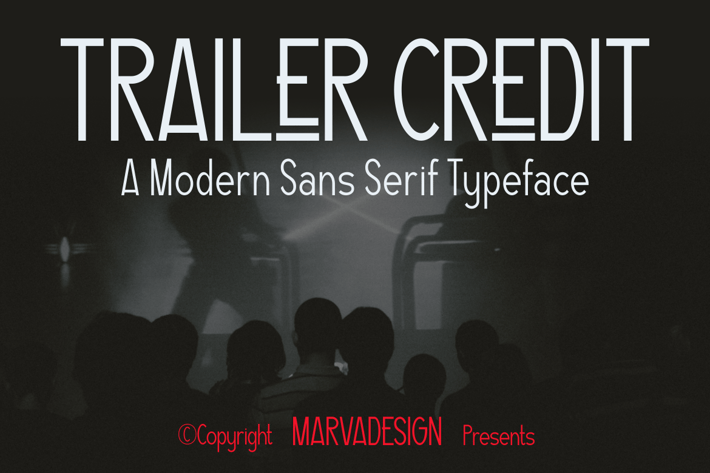
Trailer Credit - A Modern Sans Serif Font
Introducing our new product Trailer Credit - Classic Slab Font
Trailer Credit - A Modern Sans Serif Font authentic display font. The font is suitable for any branding project like logo, Template Design, Product and many more. outstanding in a wide range of contexts.
Alternate
Trailer Credit - A Modern Sans Serif Font authentic display font. The font is suitable for any branding project like logo, Template Design, Product and many more. outstanding in a wide range of contexts.
Alternate